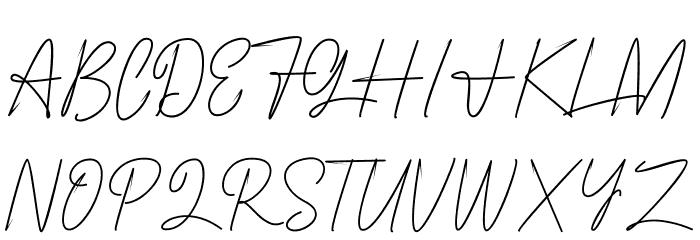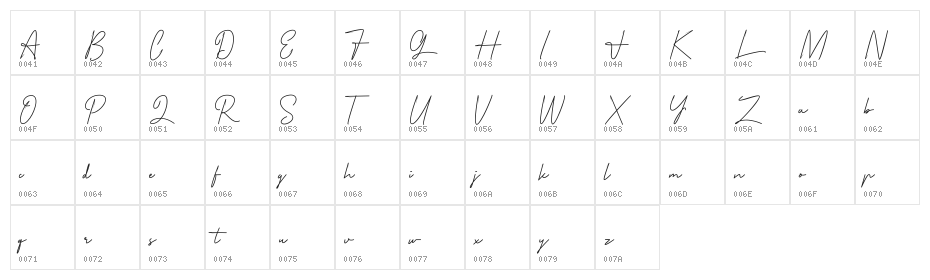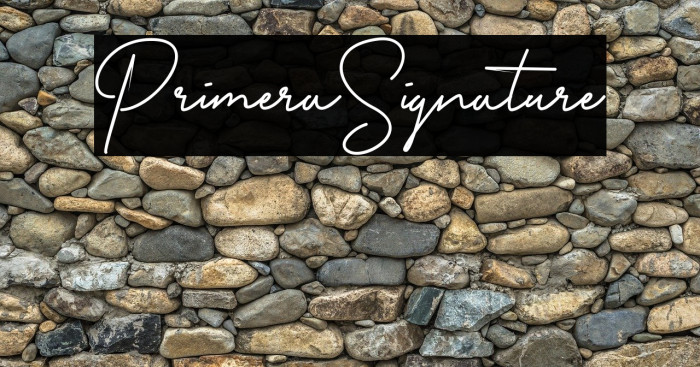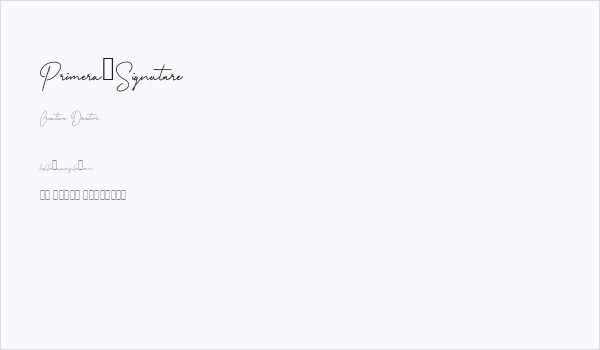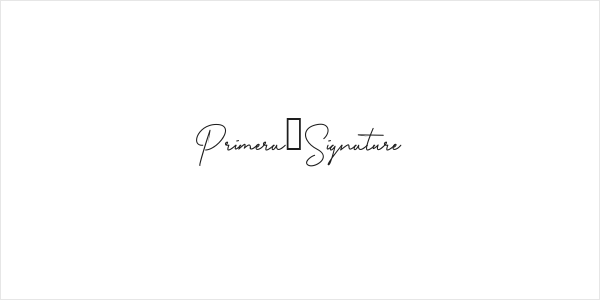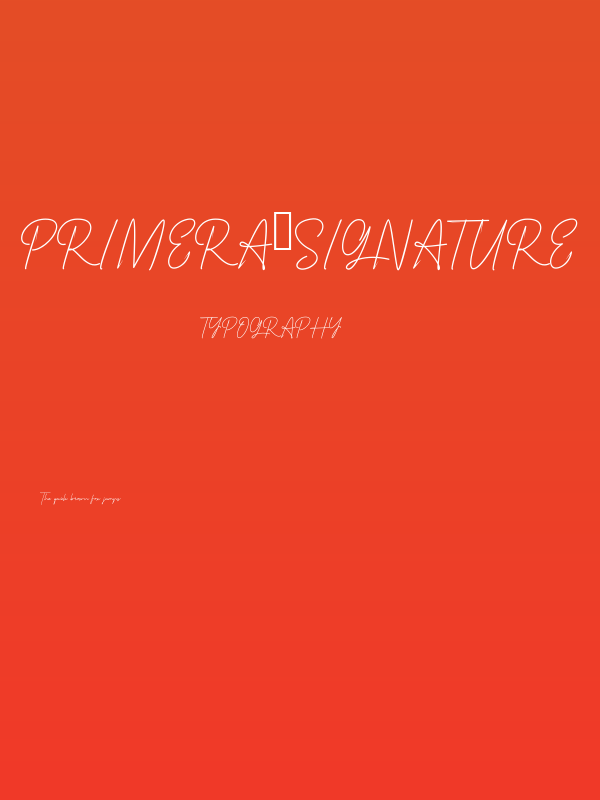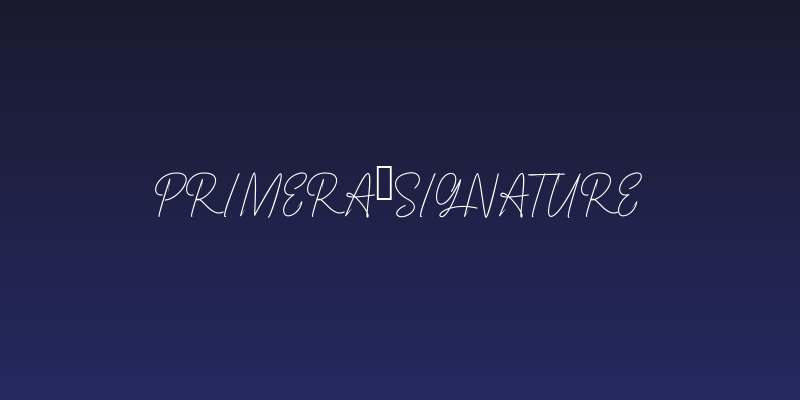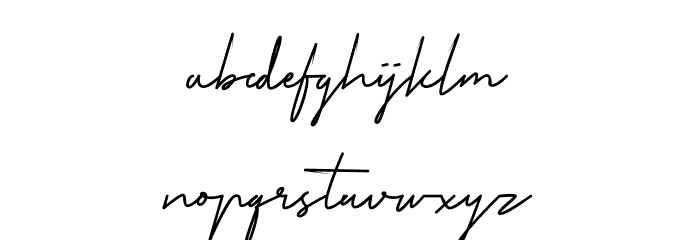
Primera_Signature Font
Primera_Signature Description
This elegant script font features a flowing, handwritten style with smooth, continuous strokes that mimic the fluidity of natural handwriting. The uppercase letters are tall and slender, with a slight slant that adds a dynamic and sophisticated touch. The lowercase letters are more compact, maintaining a consistent flow that enhances readability while preserving the artistic flair. The font's thin lines and delicate curves give it a refined and graceful appearance, making it suitable for projects that require a personal and stylish touch. The overall design is modern yet timeless, offering versatility for various creative applications.
| Proposed Projects | Ideal for wedding invitations, personal branding, greeting cards, and elegant packaging designs. |